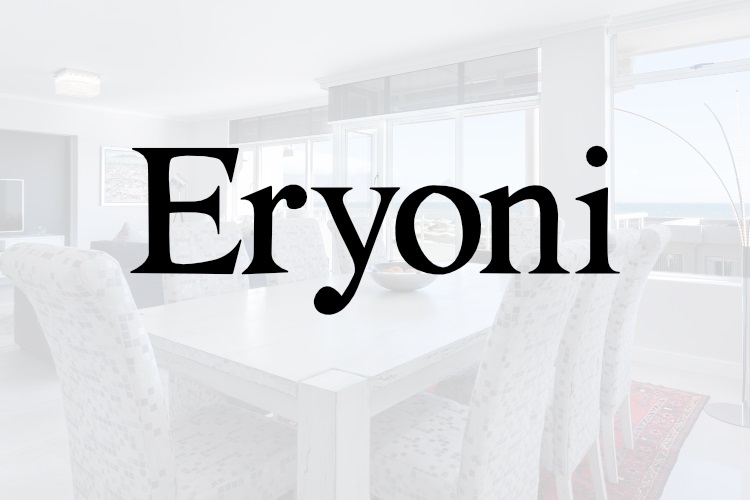
Eryoni Font
Eryoni is a modern, elegant typeface that works well across different types of media. Its OTF format makes it easy to use on many platforms, such as Adobe Creative Suite, Microsoft Office, and more.
Eryoni Serif Font